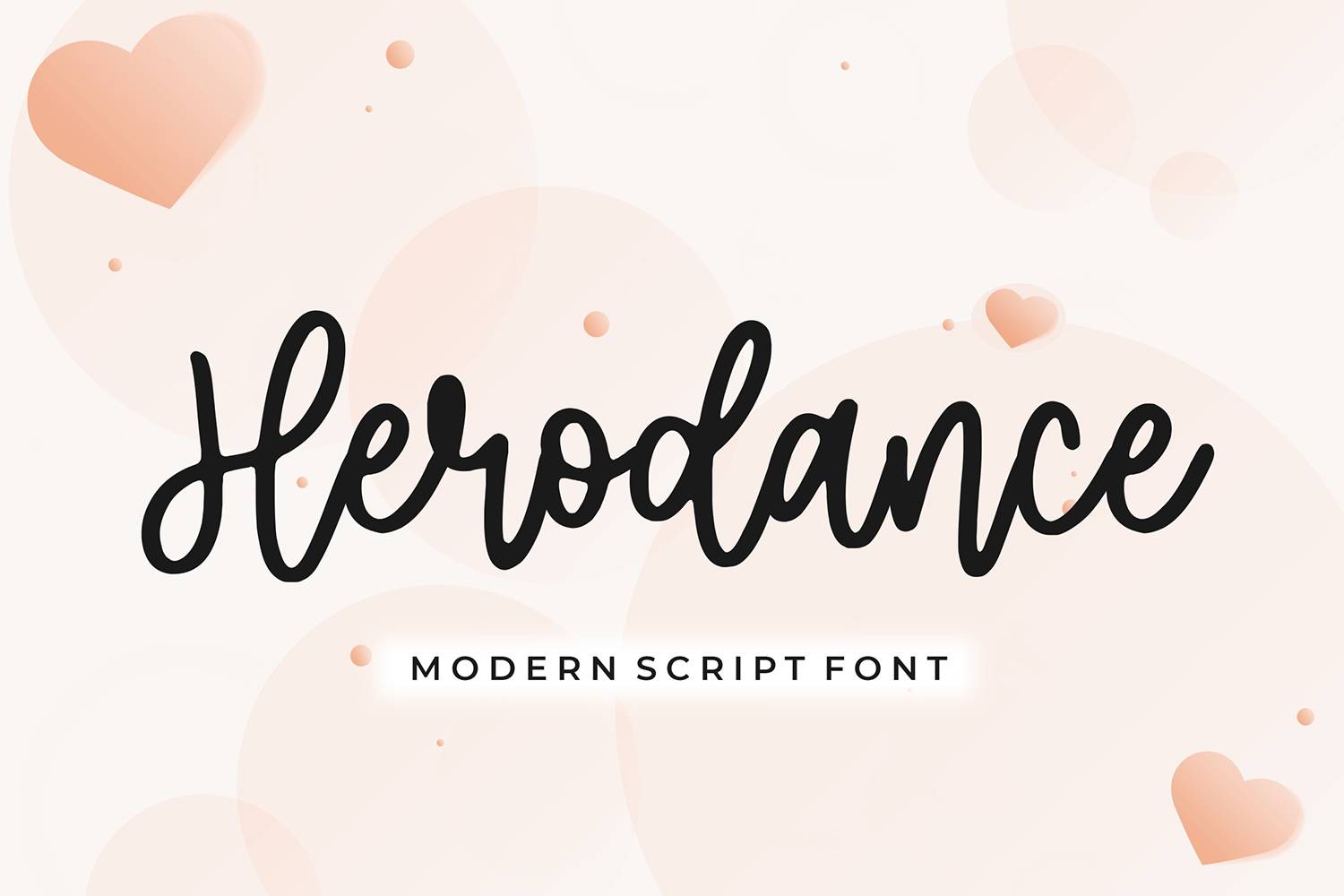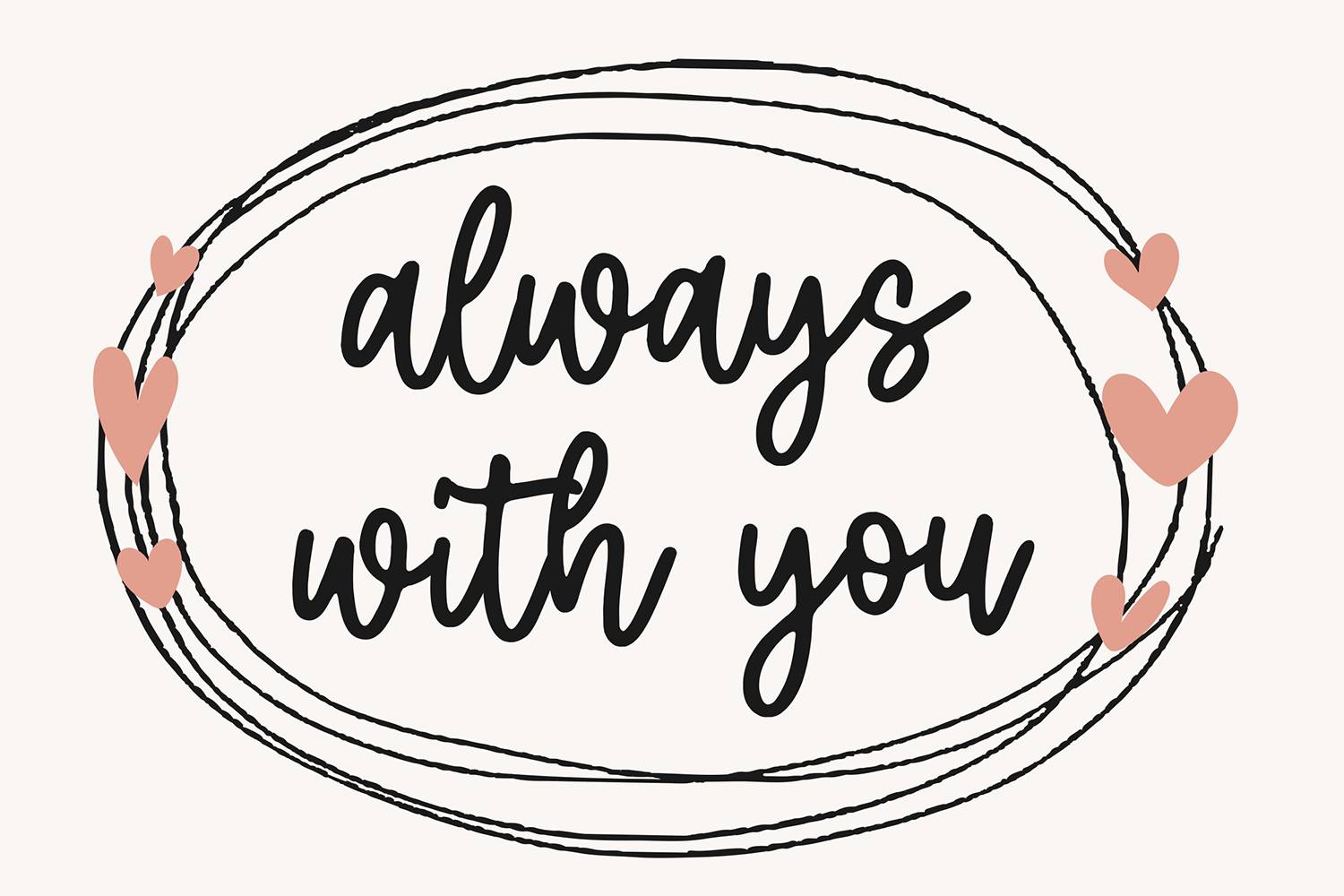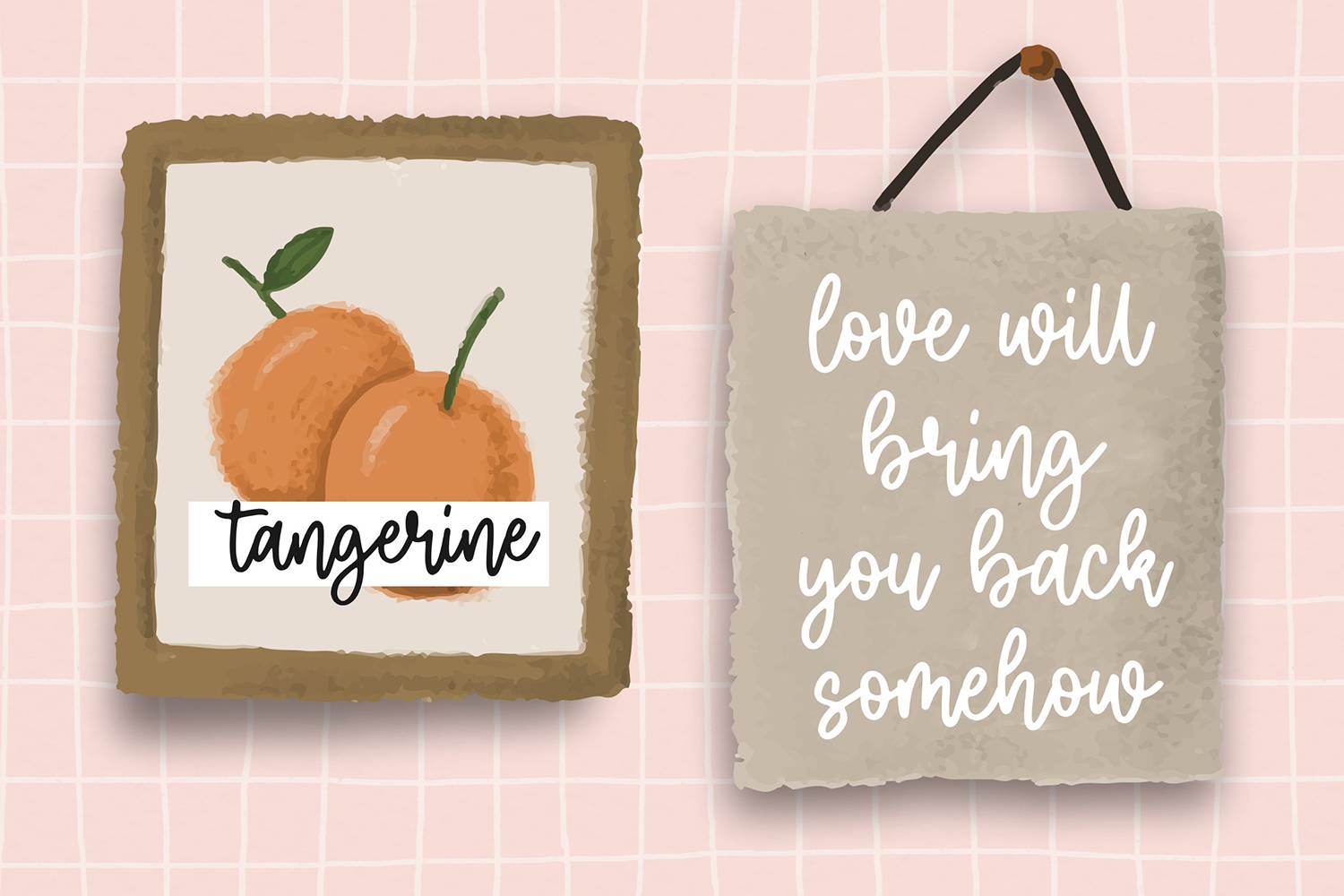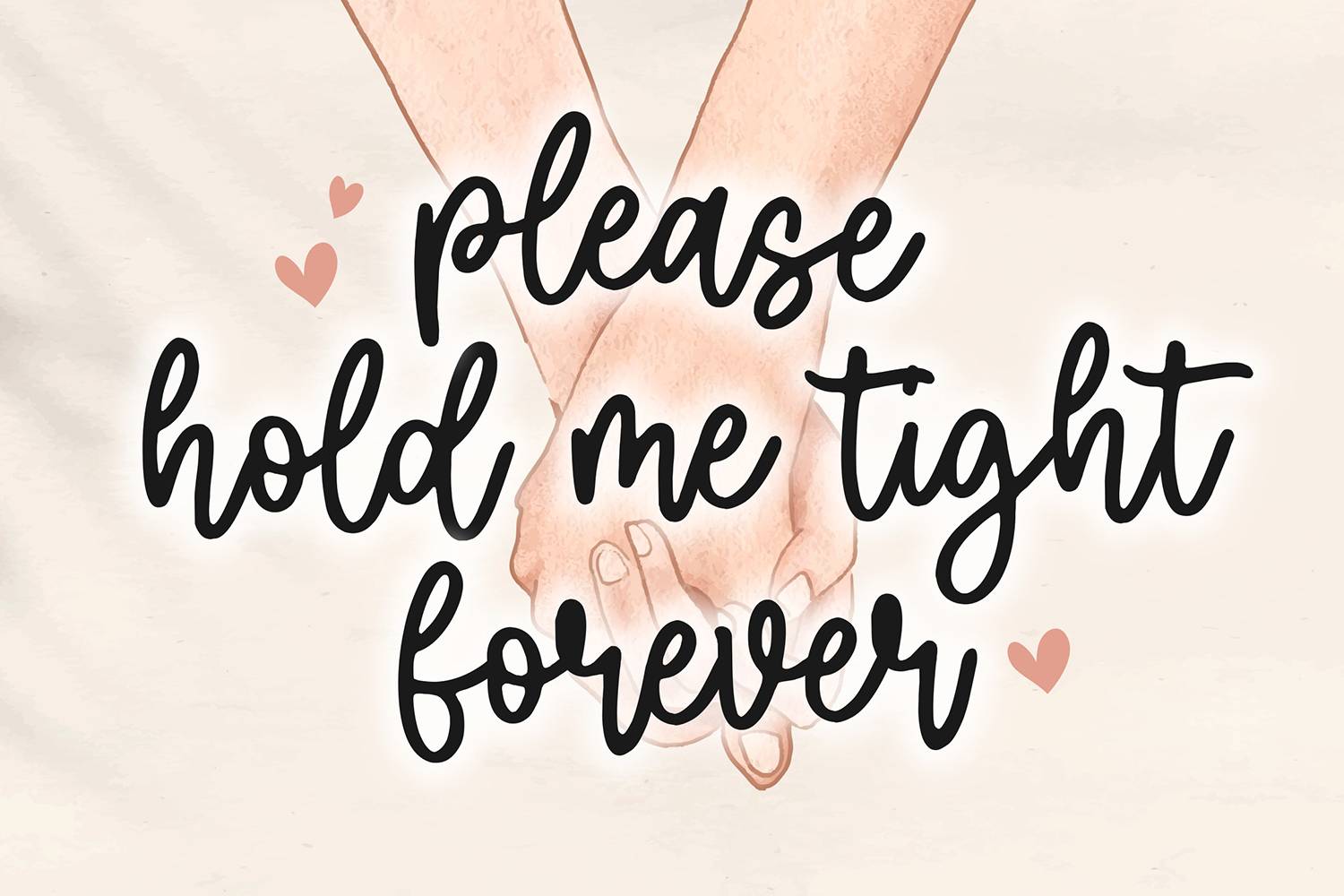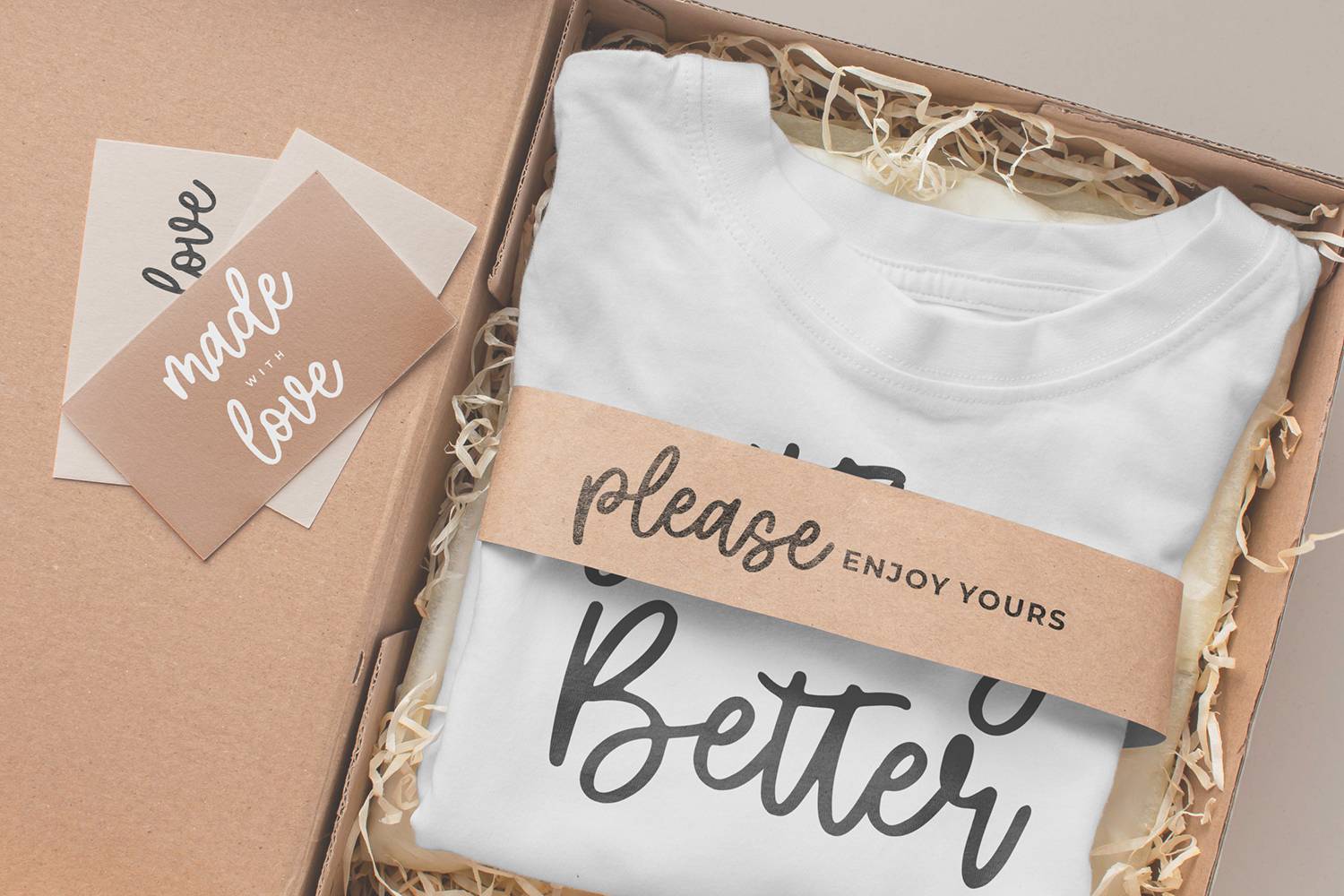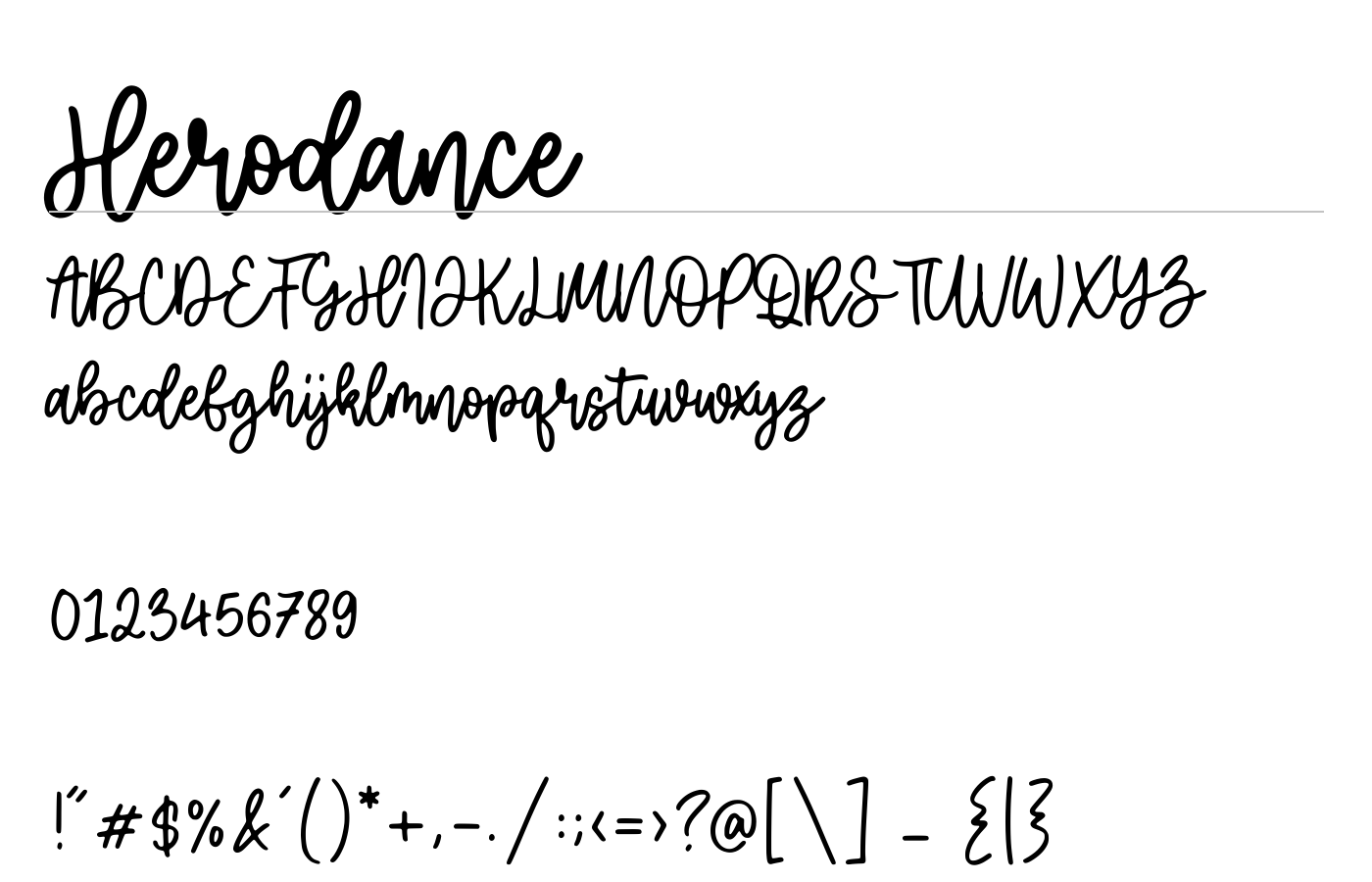
Herodance is a lively, handwritten script font with a casual, friendly feel, characterized by its smooth, flowing strokes and moderate contrast. Its playful yet elegant letterforms work well for creative branding, invitations, and informal editorial projects where a personal touch is desired. This font shines in contexts that call for approachable, warm, and artistic expression.
Herodance Font
About Herodance Font